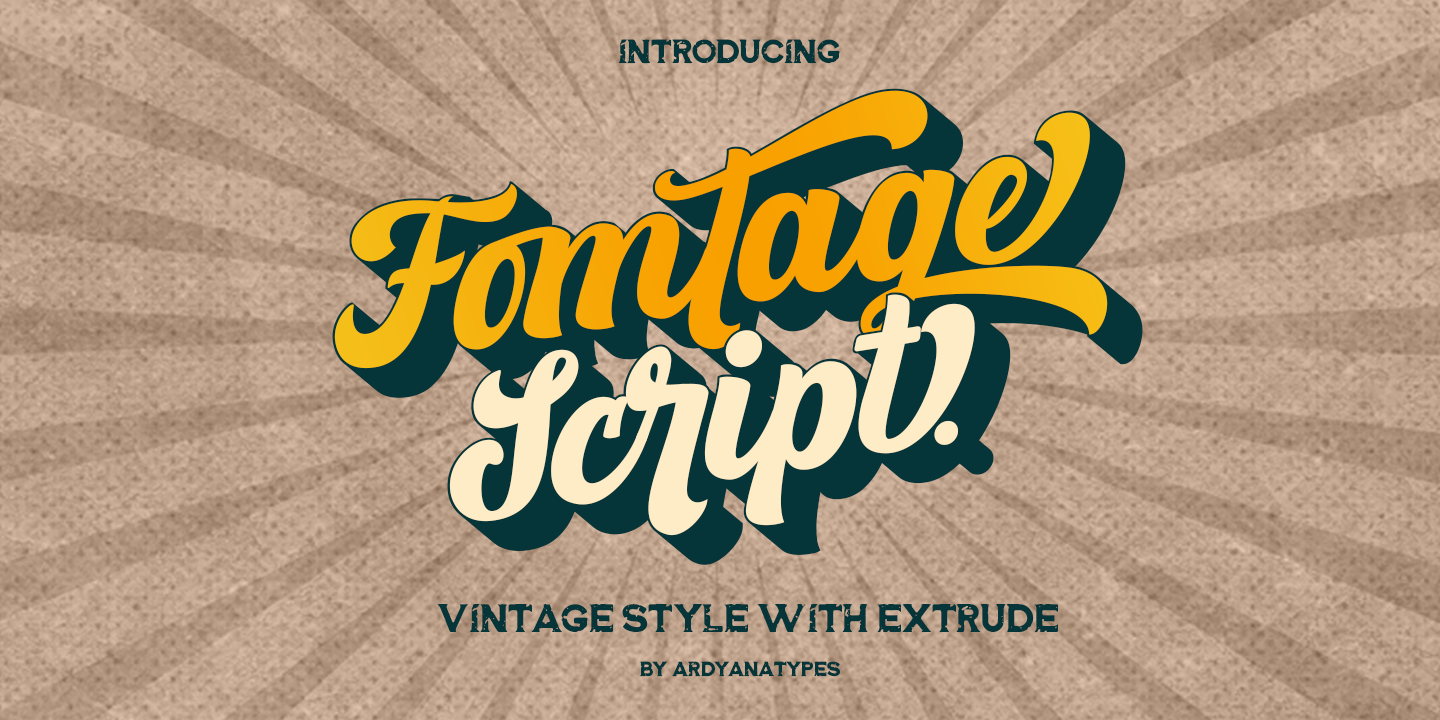
Fomtage Font is perfect for vintage photography studio branding, retro film production companies, classic movie theater communications, nostalgic photo album designs, antique camera shop marketing, heritage documentary promotions, vintage-inspired social media campaigns, and timeless memory preservation services. This evocative typeface excels in applications where photographic nostalgia, vintage authenticity, and timeless memory-making are essential for connecting with audiences who appreciate the artistry of classic photography and the enduring beauty of captured moments.
What makes Fomtage Font so exciting is its masterful embodiment of photographic heritage and vintage film aesthetics that perfectly captures the essence of classic camera craftsmanship and the nostalgic beauty of analog photography traditions. The font features aged, film-inspired letterforms with photographic characteristics that evoke vintage camera equipment and classic darkroom processes. Its nostalgic character conveys authenticity, craftsmanship, and timeless artistry - essential qualities for brands serving photography enthusiasts, vintage collectors, and audiences who appreciate analog photography, classic film techniques, and the irreplaceable charm of traditional photographic processes and vintage visual storytelling.
The Fomtage Font family includes multiple vintage weights and photography-inspired variations that enhance its nostalgic appeal. Some versions feature weathered textures that simulate aged film and vintage photographic equipment, while others provide refined variants that maintain the font's classic character with improved readability for professional photography applications and commercial vintage aesthetic communications.
Whether you're creating branding for photography services, designing materials for vintage-themed businesses, or developing marketing campaigns for nostalgic experiences, Fomtage Font Free Download provides the photographic authenticity your project requires. The font's vintage character makes it particularly effective for brands targeting photography enthusiasts and audiences who appreciate classic film aesthetics, analog photography, and the timeless artistry of vintage photographic heritage.
Develop timeless memories with Fomtage Font and capture nostalgic brand communications with typography that celebrates the classic artistry of vintage photography and film heritage.